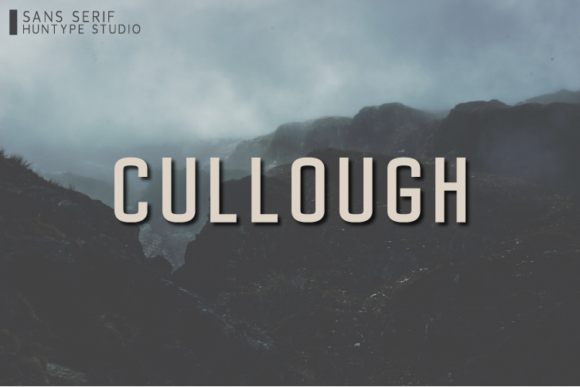
Behold, the majestic Cullough Font, a sans serif masterpiece that exudes elegance and sophistication. Huntype, the creative minds behind this font, have meticulously crafted each letterform with precision, resulting in a typeface that commands attention and leaves a lasting impression.
Immerse yourself in the world of Cullough, where your designs take on a life of their own. Its sharp edges and clean lines lend a modern touch to logos, branding, and any project that demands a touch of class. Whether you're a seasoned designer or just starting out, Cullough is your gateway to creating designs that resonate with your audience.
Unleash your creativity and let Cullough's versatility shine. It seamlessly adapts to any project, whether it's a sleek and minimalist business card or an eye-catching social media post. Its inherent charm adds a touch of sophistication to wedding invitations, posters, and flyers, making them truly unforgettable.
With Cullough, your designs transcend the ordinary and become extraordinary. Its timeless appeal ensures that your creations remain relevant and impactful for years to come. So, dive into the world of Cullough and unlock the potential for captivating designs that leave a lasting legacy.